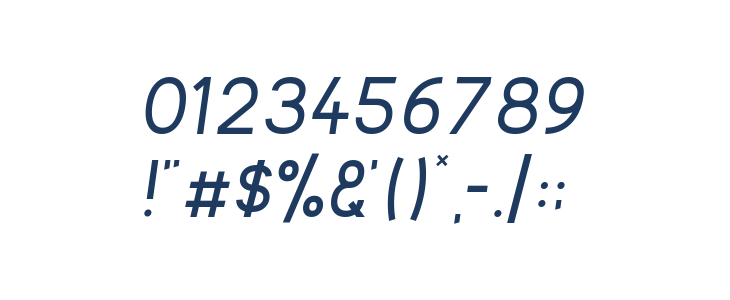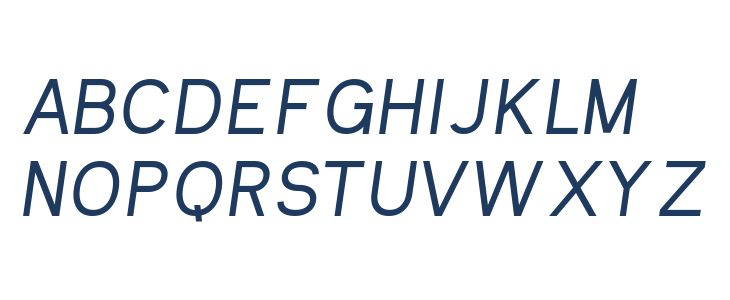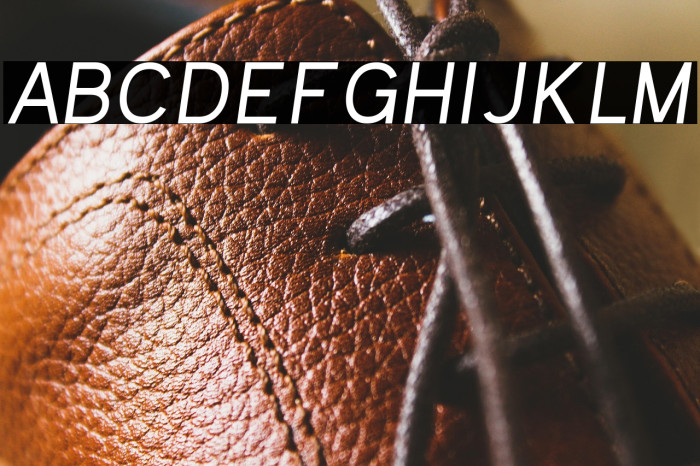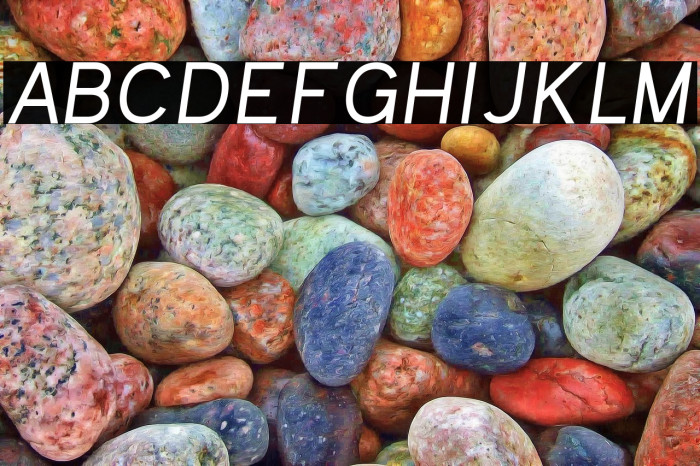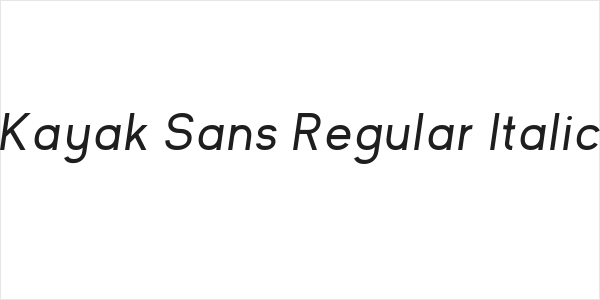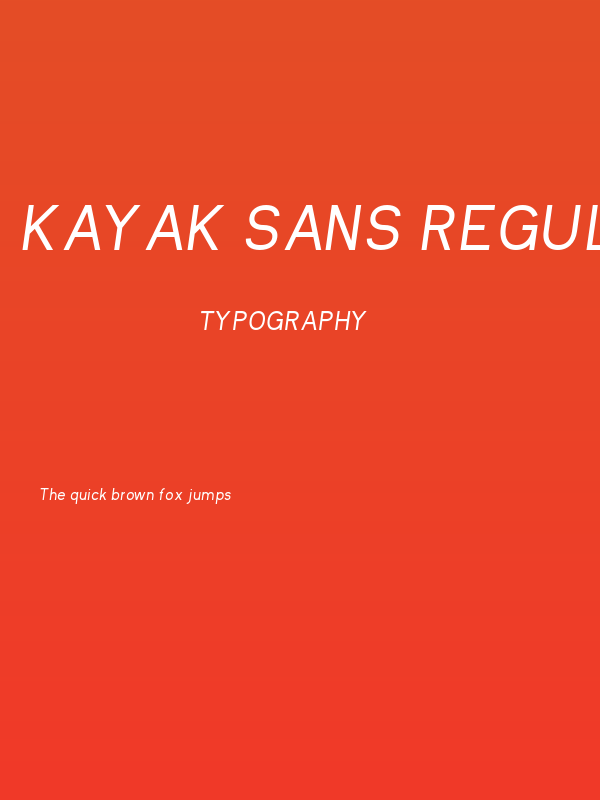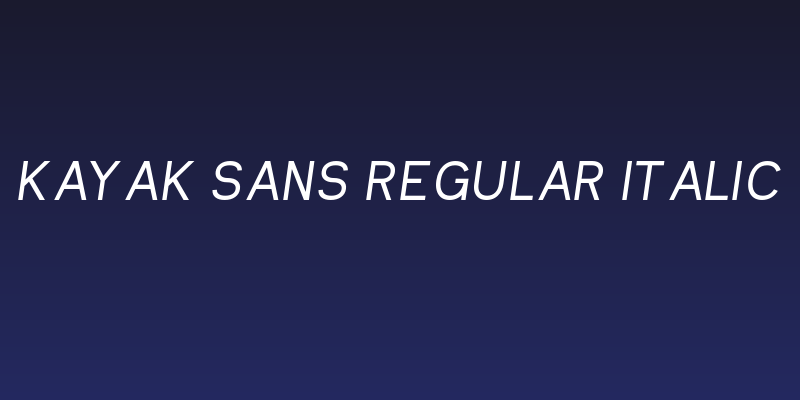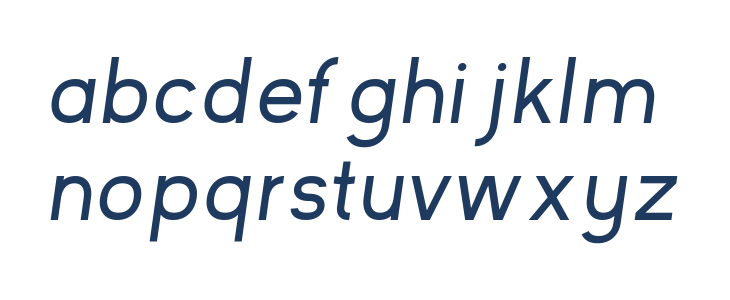
Kayak Sans Regular Italic Font
Kayak Sans Regular Italic Description
This font features a clean and modern sans-serif style with a subtle italic slant, giving it a dynamic and contemporary appearance. The characters are well-proportioned with a consistent stroke width, contributing to its readability and versatility. The uppercase and lowercase letters maintain a harmonious balance, while the numerals are clear and distinct. Special characters are thoughtfully designed to complement the overall aesthetic. The font's simplicity and elegance make it suitable for a wide range of applications.
| Proposed Projects | Ideal for branding, advertising, web design, and editorial projects where a modern and clean look is desired. |